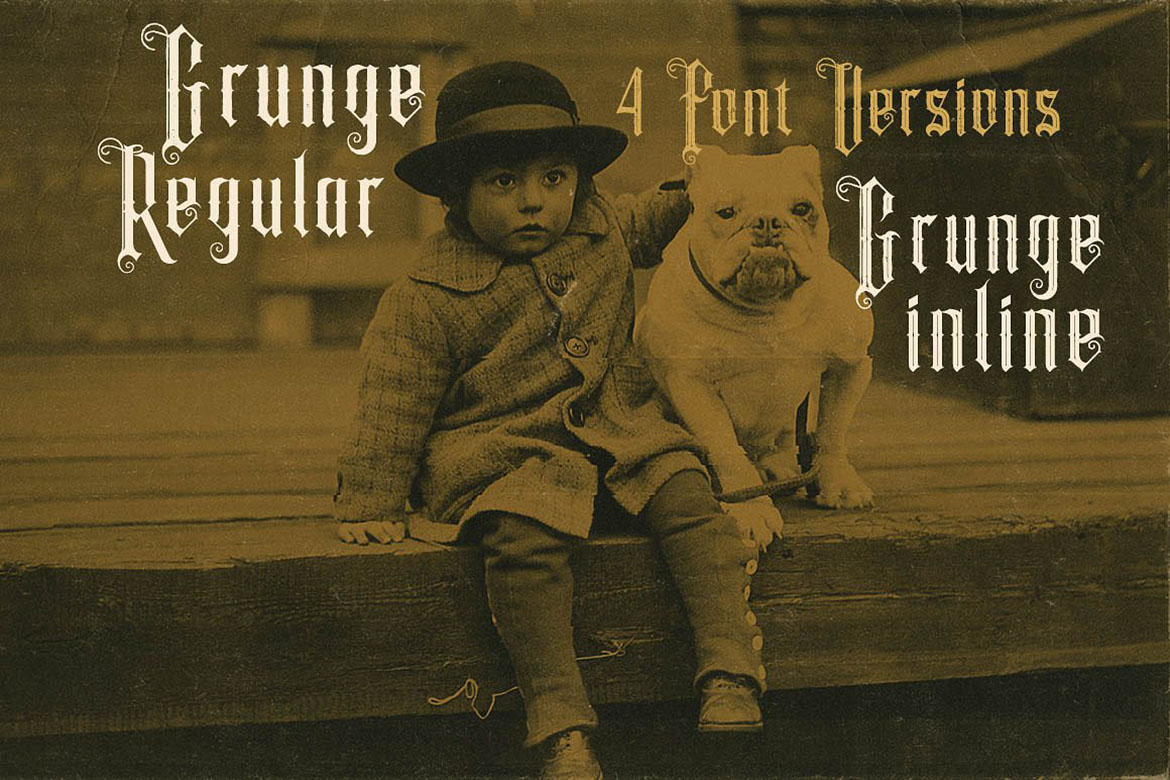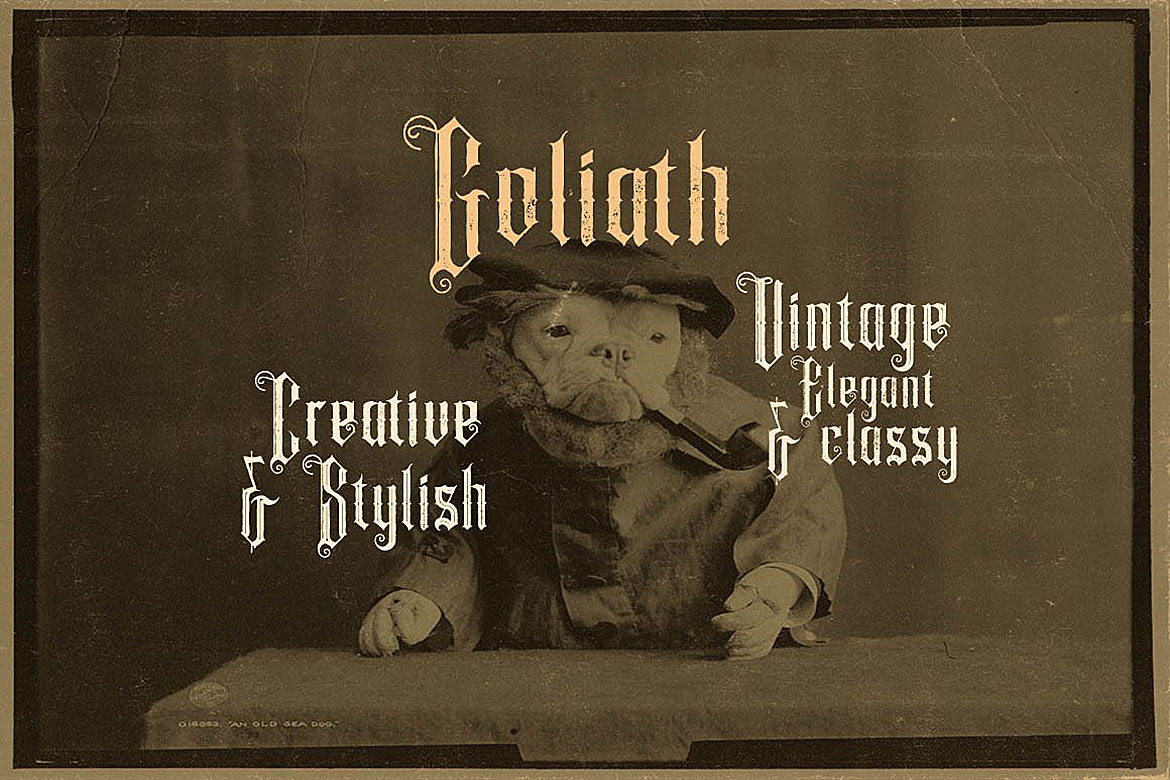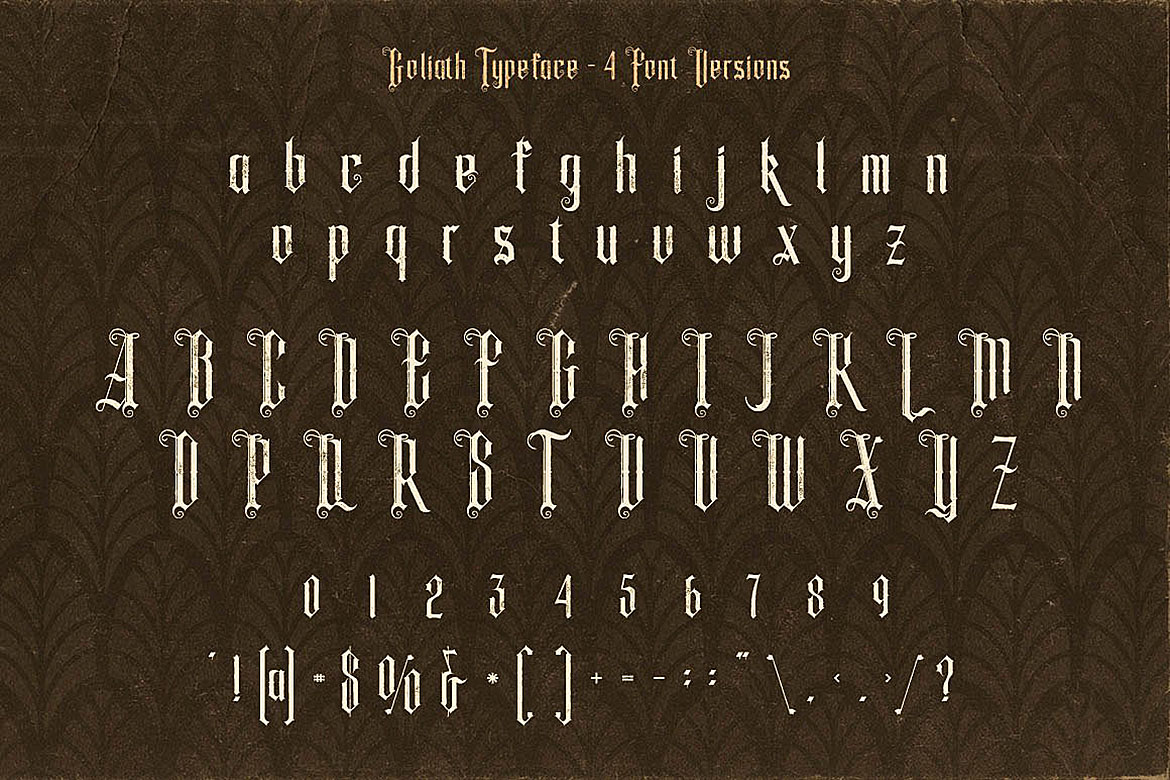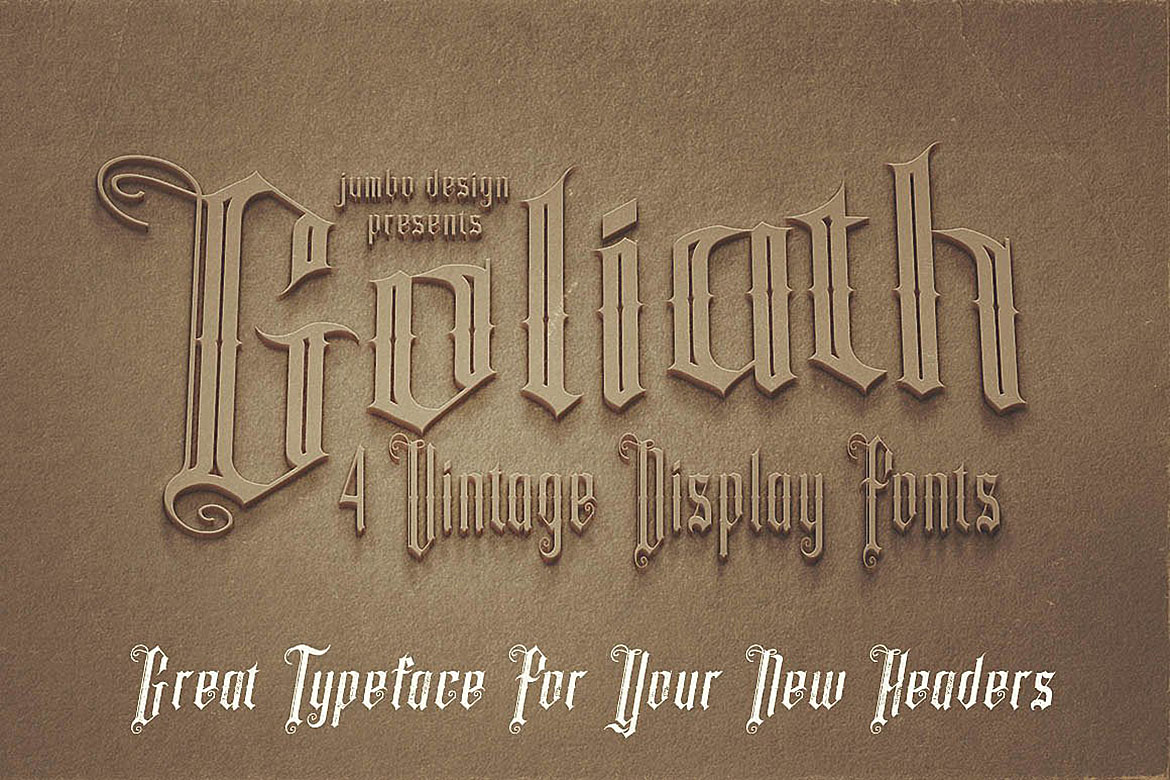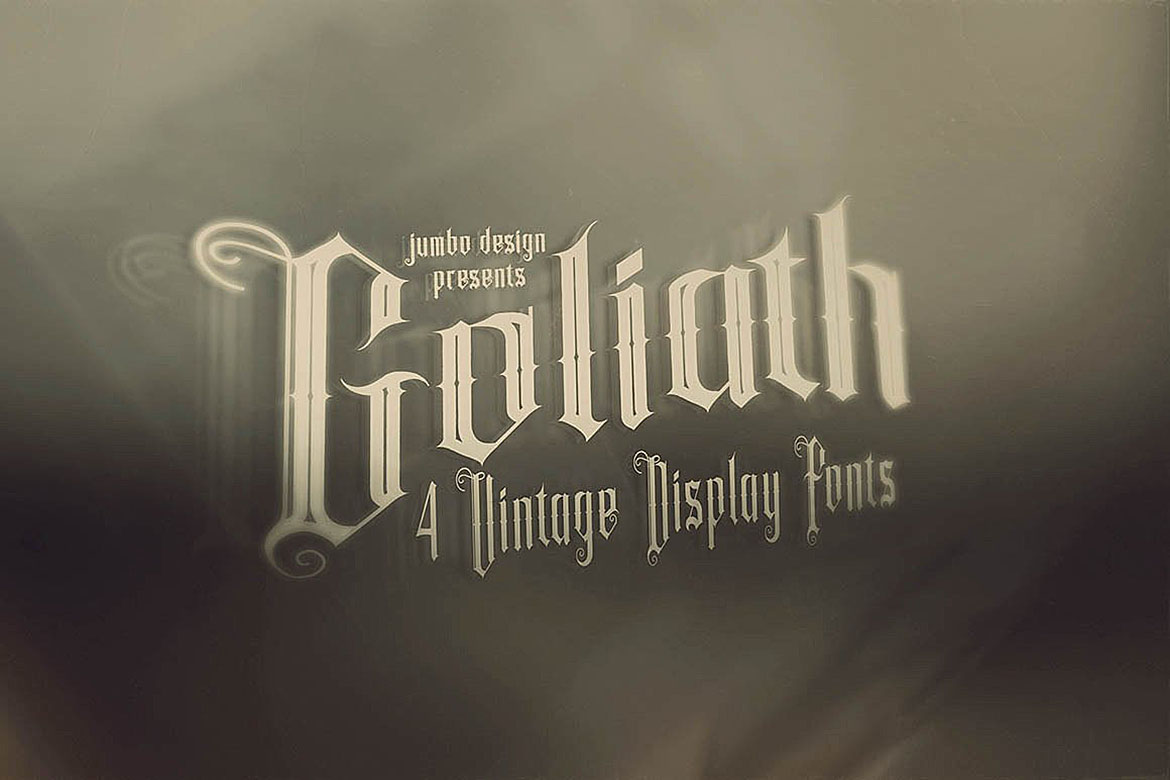
Goliath Font: The Ultimate Retro Blackletter Font for Designers and Crafters
Are you looking for a font that adds a touch of classic elegance to your creative projects? Look no further than the Goliath Font, a fun and retro blackletter font that’s perfect for branding, designs, and crafts. In this article, we’ll explore the features and benefits of the Goliath Font, and show you how to make the most of this amazing font in your designs.
What is Goliath Font?
Goliath Font is a unique and stylish blackletter font that’s inspired by traditional calligraphy and vintage typography. With its bold and dramatic lettering, this font is sure to make a statement in any design project. Whether you’re creating a logo, a poster, or a craft project, Goliath Font is the perfect choice for adding a touch of classic sophistication.
Key Features of Goliath Font
So what makes Goliath Font so special? Here are just a few of its key features:
- Retro Style: Goliath Font has a distinctly retro feel that’s perfect for vintage-inspired designs.
- Blackletter Style: This font features bold, dramatic lettering that’s reminiscent of traditional calligraphy.
- Multiple Styles: Goliath Font comes in different styles, allowing you to experiment with different looks and feels.
- Vintage-Inspired: This font is perfect for creating designs that evoke a sense of nostalgia and classic charm.
Benefits of Using Goliath Font
So why should you choose Goliath Font for your design projects? Here are just a few benefits:
- Easily Readable: Despite its bold and dramatic style, Goliath Font is surprisingly easy to read, making it perfect for use in a variety of design projects.
- Versatile: This font can be used in a wide range of design projects, from logos and posters to crafts and DIY projects.
- Unique: Goliath Font has a distinctive style that’s sure to set your designs apart from the crowd.
- High-Quality: This font is designed to high standards, ensuring that it looks great in any design project.
How to Use Goliath Font in Your Designs
So how can you make the most of Goliath Font in your designs? Here are a few tips:
- Pair with Other Fonts: Experiment with pairing Goliath Font with other fonts to create interesting and dynamic designs.
- Use in Vintage-Inspired Designs: Goliath Font is perfect for creating vintage-inspired designs, such as posters, logos, and packaging.
- Add Texture and Patterns: Consider adding texture and patterns to your designs to give them an extra layer of depth and interest.
- Experiment with Colors: Goliath Font looks great in a range of colors, so don’t be afraid to experiment and find the perfect shade for your design.
Goliath Font is perfect for designers and crafters who want to add a touch of classic elegance to their projects. Whether you’re creating professional designs or working on a craft project, this font is sure to inspire. Here are just a few ways you can use Goliath Font:
- Logo Design: Use Goliath Font to create a bold and memorable logo for your business or brand.
- Poster Design: Create eye-catching posters and flyers with Goliath Font.
- Craft Projects: Add a touch of classic charm to your craft projects, such as scrapbooking, card making, and DIY home decor.
In conclusion, Goliath Font is a fun and retro blackletter font that’s perfect for designers and crafters who want to add a touch of classic elegance to their projects. With its bold and dramatic lettering, multiple styles, and vintage-inspired feel, this font is sure to make a statement in any design project. So why not give Goliath Font a try today and see how it can elevate your designs?